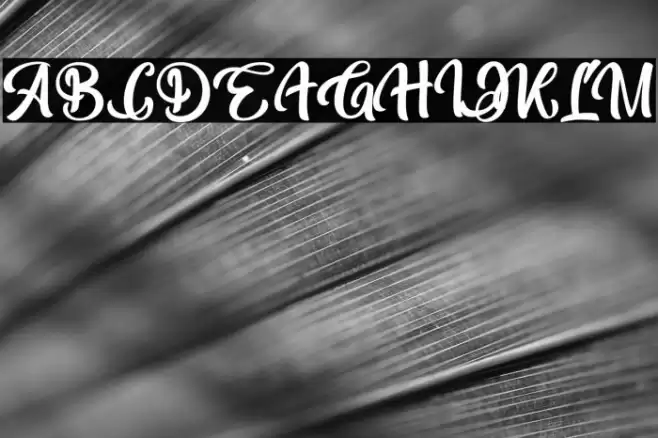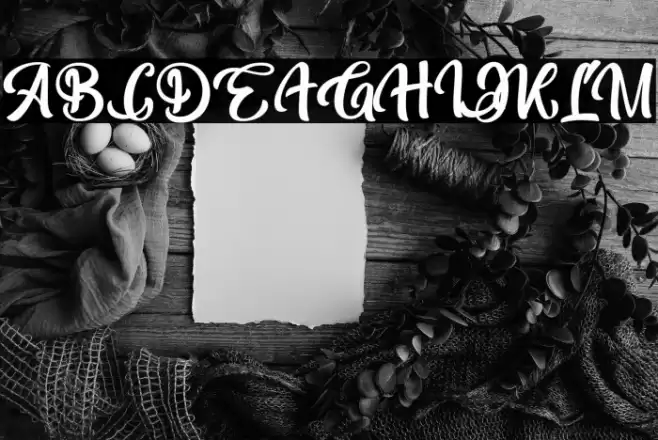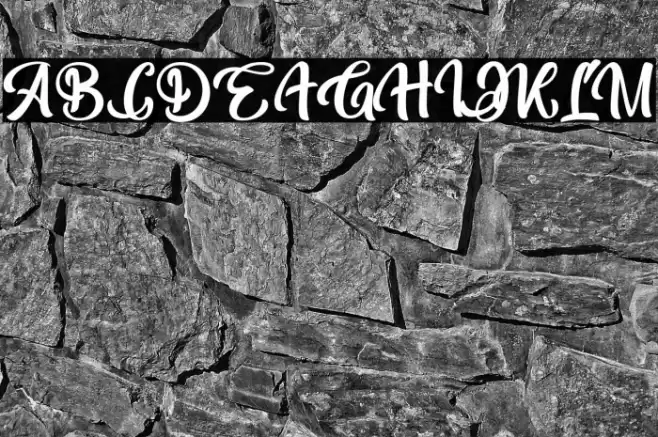
Bohemian Melody Font
Bohemian Melody Description
This font exudes a playful and artistic vibe with its flowing, cursive style. The letters are characterized by their bold, sweeping strokes and elegant curves, giving it a hand-drawn appearance. The uppercase letters are particularly expressive, with exaggerated loops and swirls that add a sense of movement and flair. The lowercase letters maintain a consistent style, complementing the uppercase with their rounded forms and smooth connections. This font is ideal for projects that require a touch of creativity and personality, such as invitations, greeting cards, or branding materials. Its unique style makes it stand out, while still being legible and versatile.
A bold, cursive font with flowing, artistic strokes and elegant curves from Uncategorized fonts.
- Proposed Projects: Ideal for invitations, greeting cards, branding materials, and creative projects.
- Use Case: Logos, Headlines, Creative projects